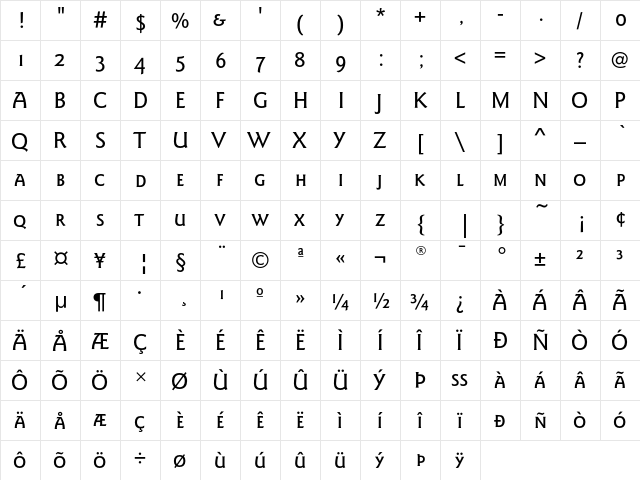
GoudySansSCEF Medium Font Preview
GoudySansSCEF Medium
Design Context for GoudySansSCEF Typeface
GoudySansSCEF is a composed and adaptable typeface that performs quietly and consistently across a wide range of design contexts.